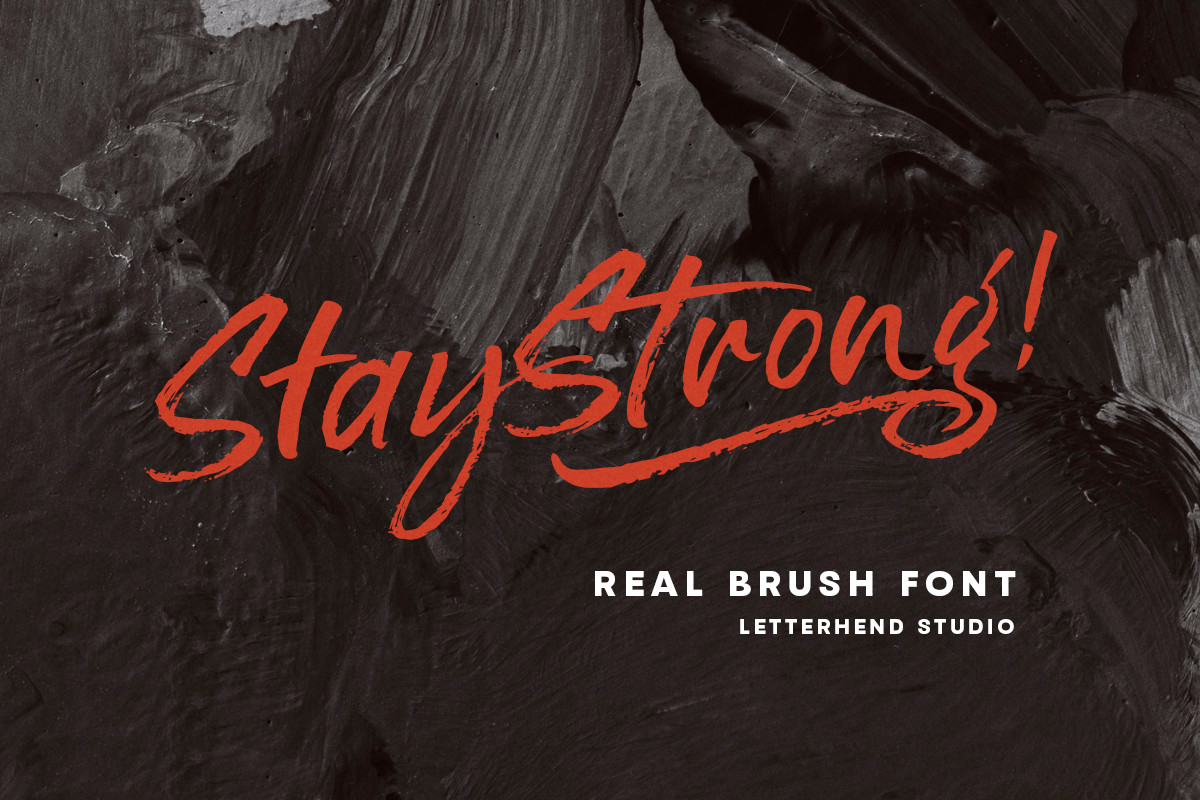
Stay Strong Font
Stay Strong Font is perfect for fitness center branding, motivational poster designs, mental health awareness campaigns, resilience coaching materials, empowerment workshop graphics, survivor support group signage, strength training app interfaces, inspirational book covers, wellness retreat branding, and personal development seminar materials. This powerful typeface brings unwavering determination to motivational speaker presentations, recovery program materials, athletic performance branding, courage-building initiatives, and empowering social movement communications.
Stay Strong Font is exciting because it embodies the unbreakable spirit of human resilience and determination through its powerfully constructed letterforms. The font features bold, steadfast characters with strong structural elements and unwavering proportions that convey inner strength, emotional fortitude, and the capacity to overcome challenges. Its distinctive construction demonstrates psychological resilience with carefully reinforced elements that create an immediate sense of stability and enduring power. The font's empowering presence and strength-focused design make it perfect for organizations seeking to communicate perseverance, mental toughness, and inspirational empowerment in their visual communications.
The Stay Strong Font family includes various empowering styles: Light, Regular, Medium, Bold, Black, Italic, Condensed, Extended, Motivational, Resilient, Empowered, and Inspiring variants. Each family member maintains the core strength DNA while offering different levels of empowerment for diverse motivational design applications. The comprehensive font collection ensures consistent inspirational branding across wellness campaigns, empowerment programs, and strength-building communication materials.
Whether you're creating empowerment brand identities, designing motivational marketing materials, developing strength-focused website headers, or crafting inspirational promotional campaigns, Stay Strong Font delivers outstanding motivational appeal and resilience authenticity. The font's distinctive empowering personality excels in motivational logos, strength-building packaging design, inspirational applications, and empowerment projects where inner strength and determination are essential.